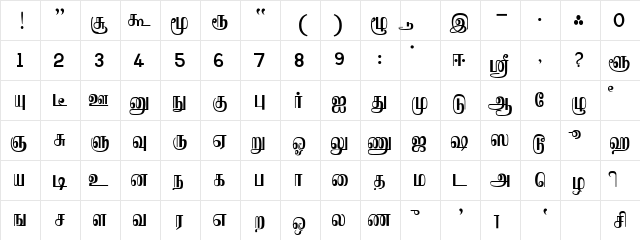
SRAVI Medium Font Preview
SRAVI Medium
SRAVI Medium Font Details
Design Context for SRAVI Typeface
SRAVI is a composed and adaptable typeface that performs quietly and consistently across a wide range of design contexts.